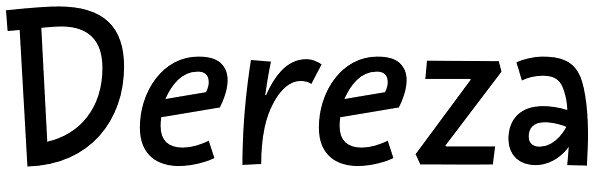
ALS Dereza
Dereza is a grotesque typeface designed specially for display use in children’s books and magazines. Books for little ones are usually set in grotesques, and a vigorous font would make a nice addition to the main face. Playful and lively, Dereza is...